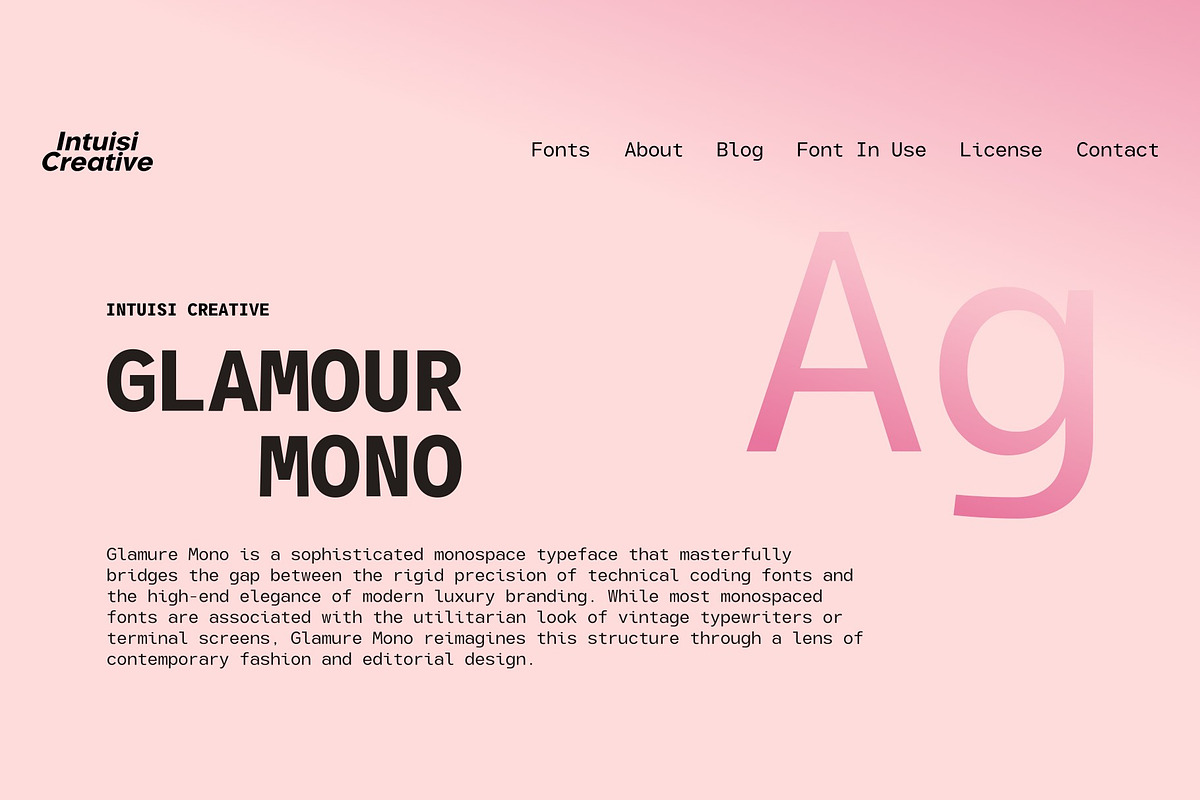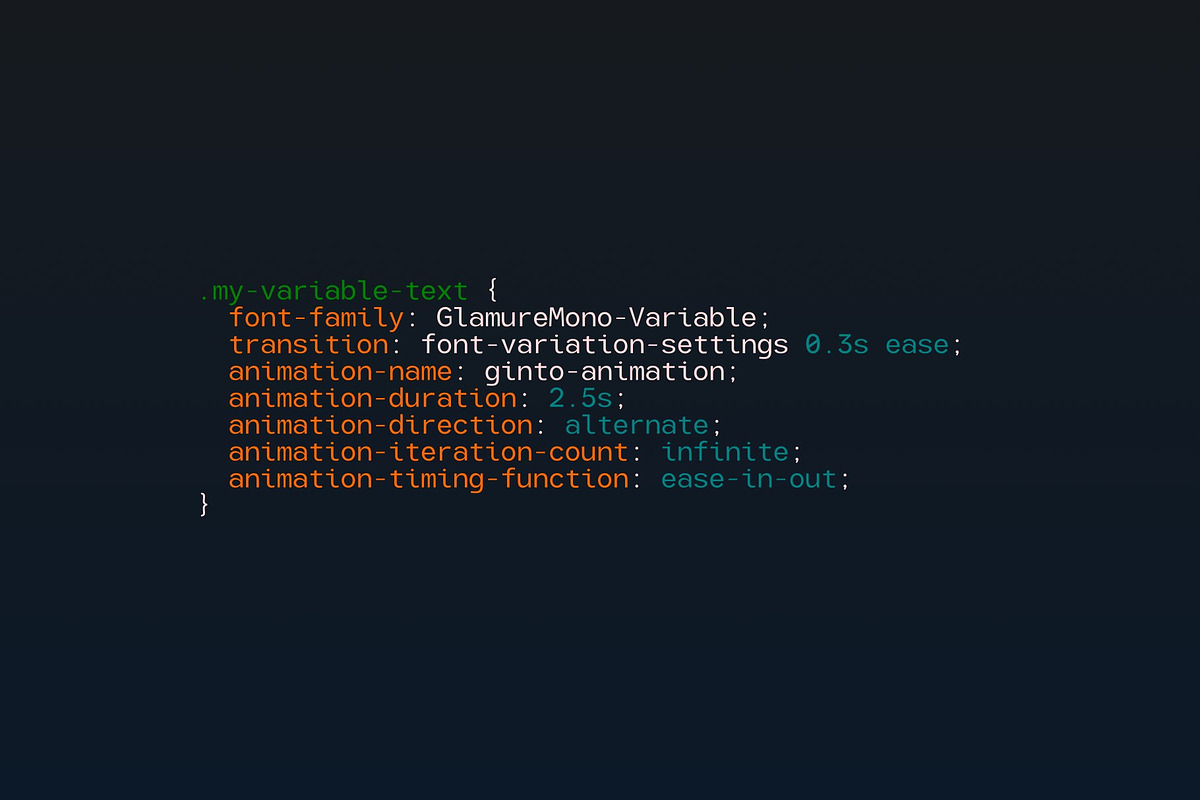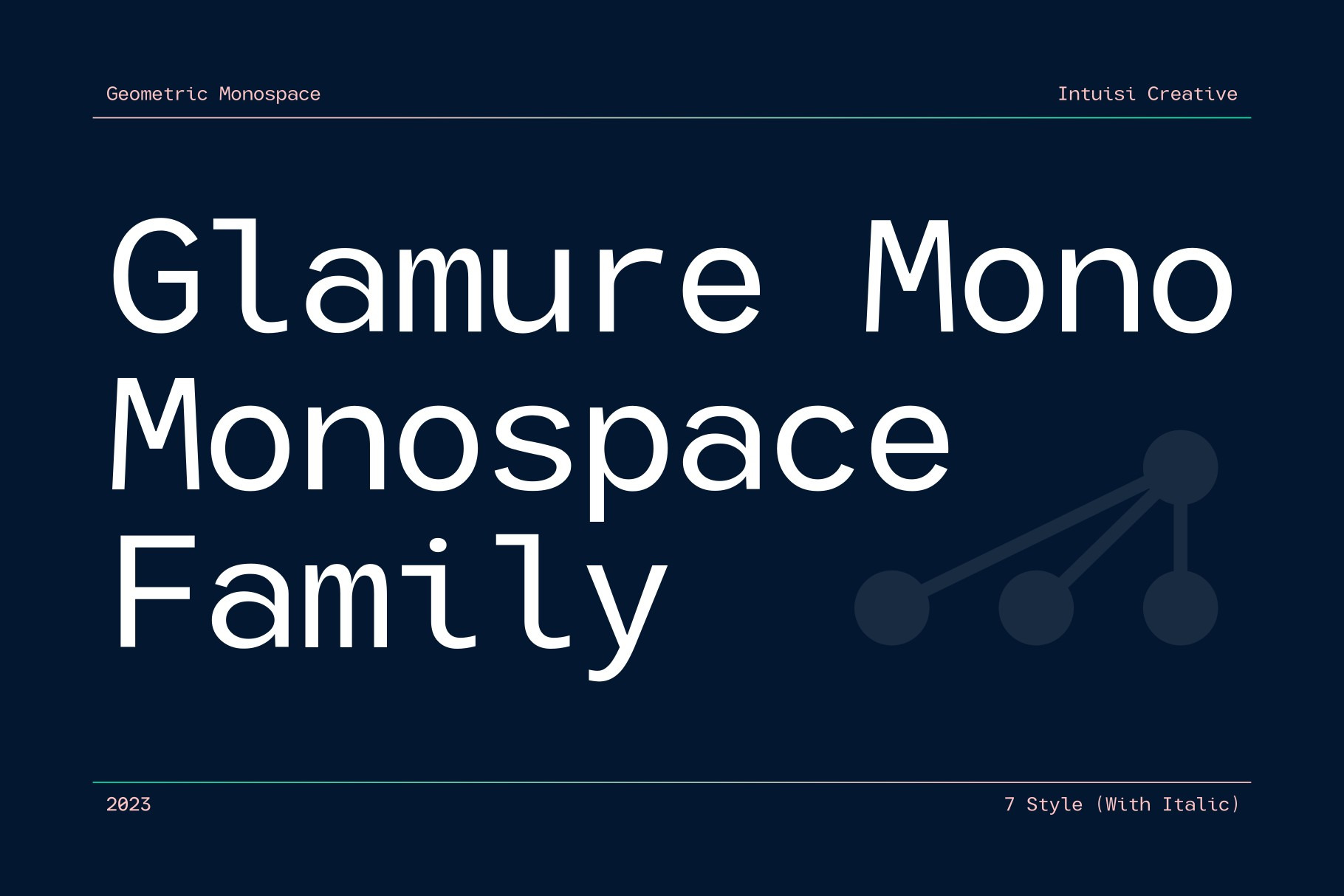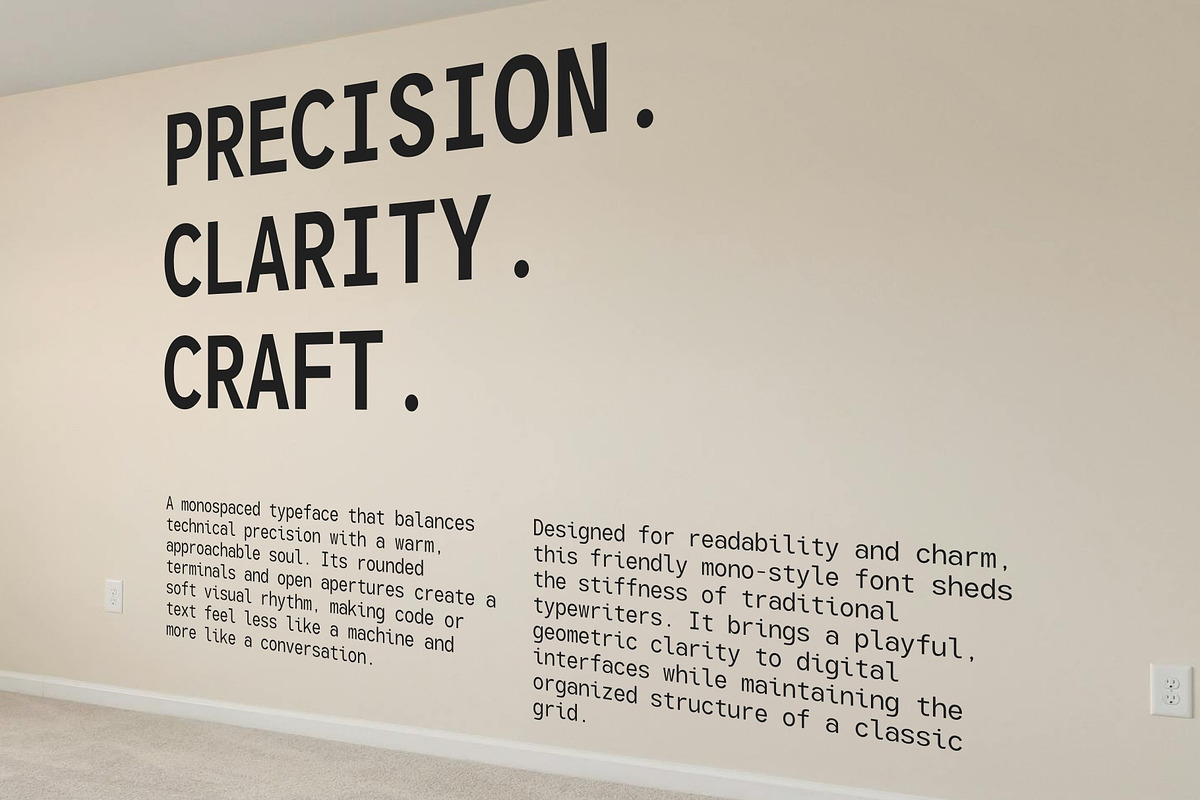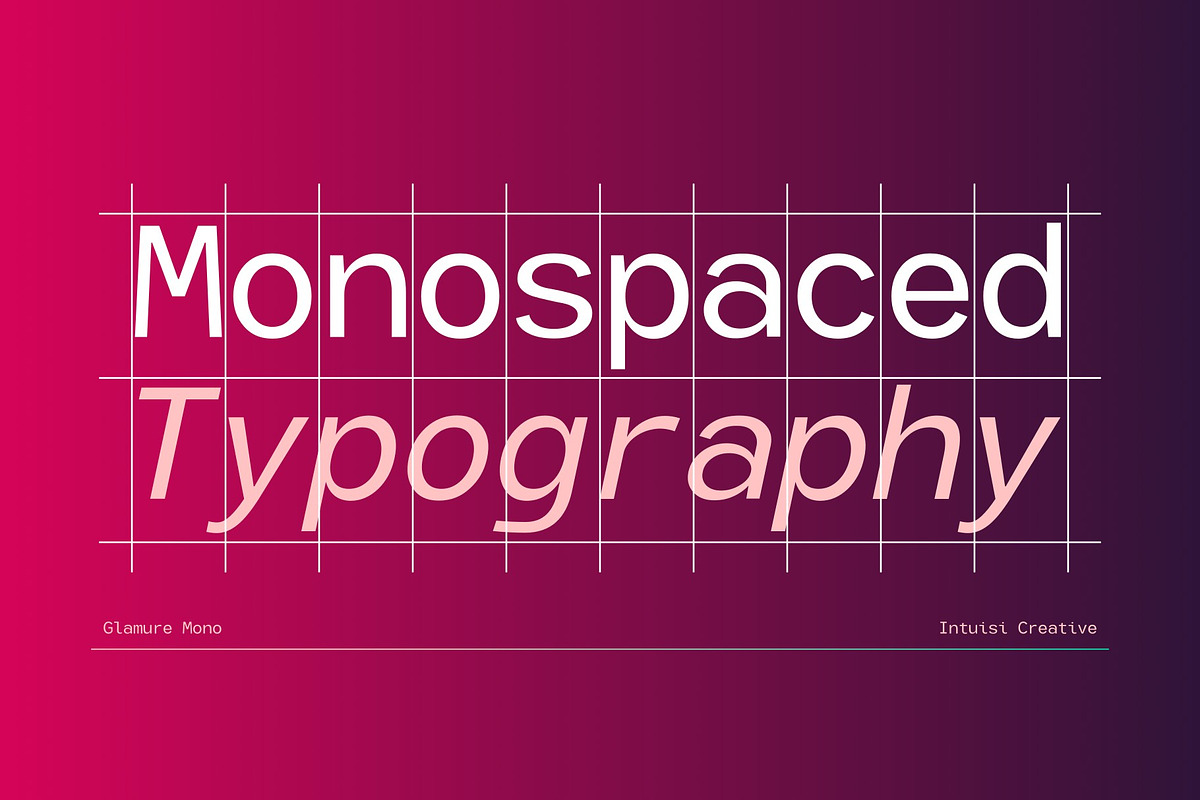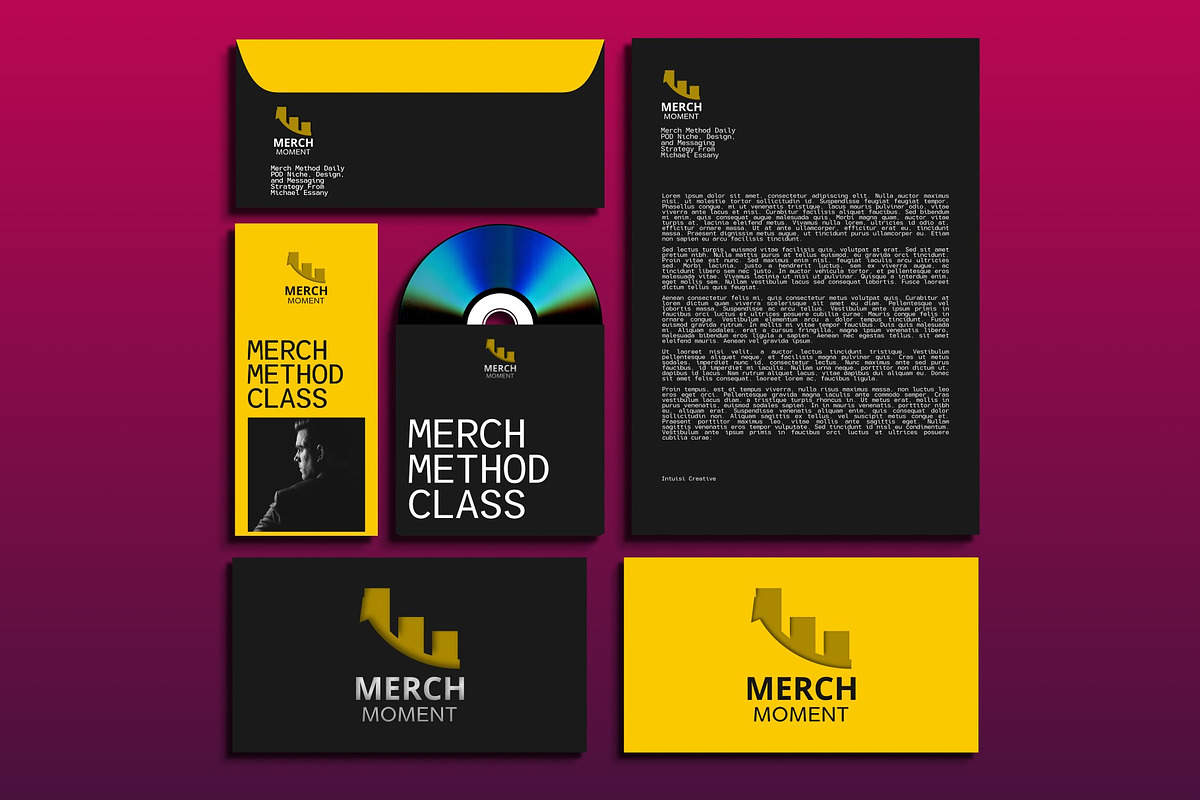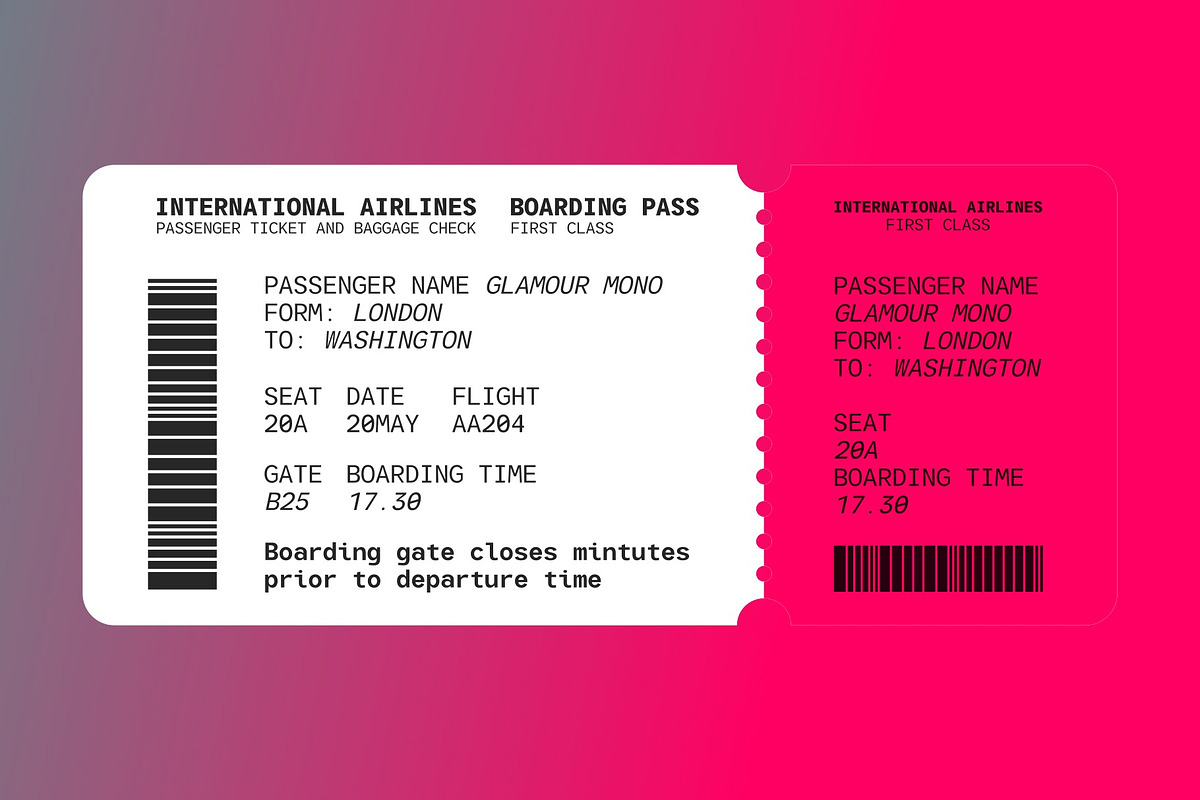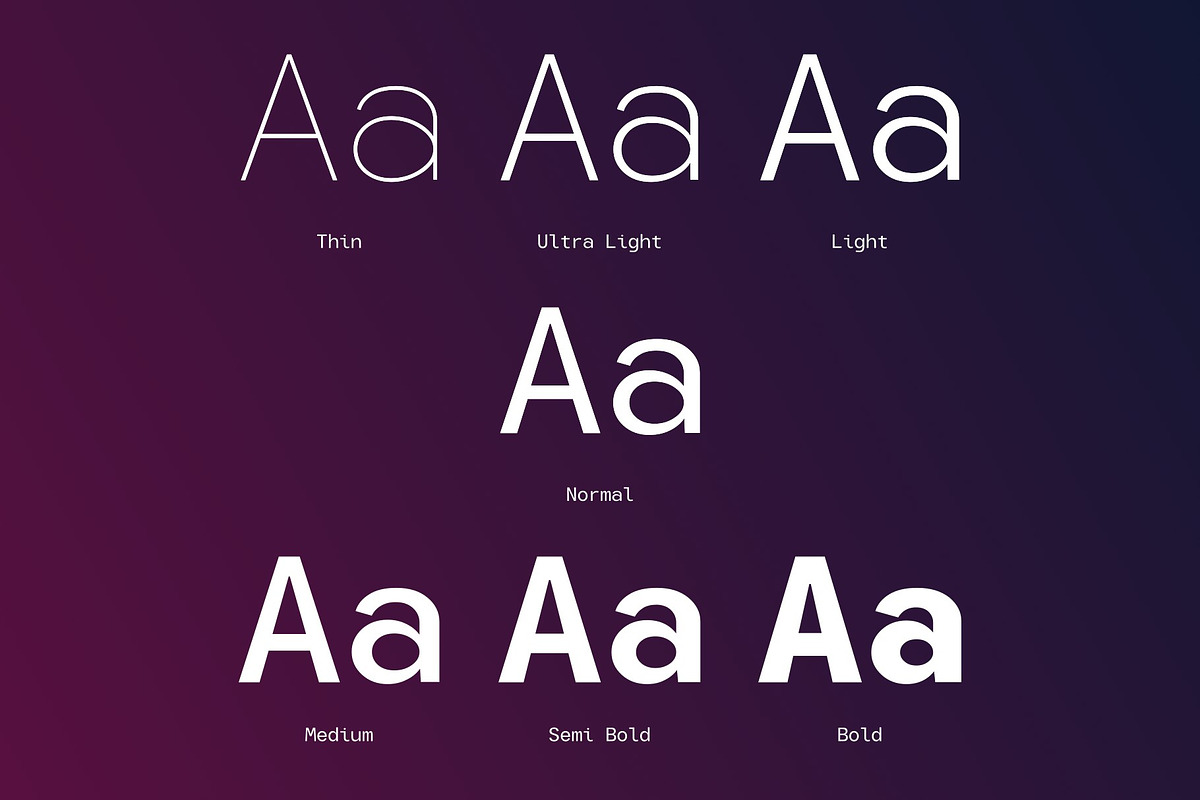
Glamure Mono | Monospace Font Family
A meticulously crafted glamour font designed for the luxury market. Featuring refined details, striking contrasts, and graceful strokes, it is the ultimate choice for high-end branding, boutique packaging, cosmetic labels, and sophisticated invitations. Elevate your brand's perceived value with a single typeface.